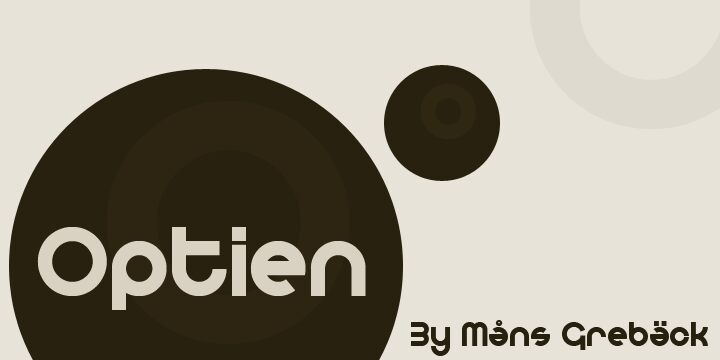
Optien by Måns Grebäck is a free techno display font with a broad, rounded silhouette and a distinctly futuristic cut. Its near-monoline strokes bend into soft arches, with open gaps and bar-like joins recurring across the letters. The mix of circular forms and unusually wide shapes gives the lettering an emphatic, custom-built look.
As a visual centerpiece, it can turn a logo, title card, or event poster into a sleek piece of retro-futurist graphics. It also fits electronic music covers, game branding, and tech packaging.